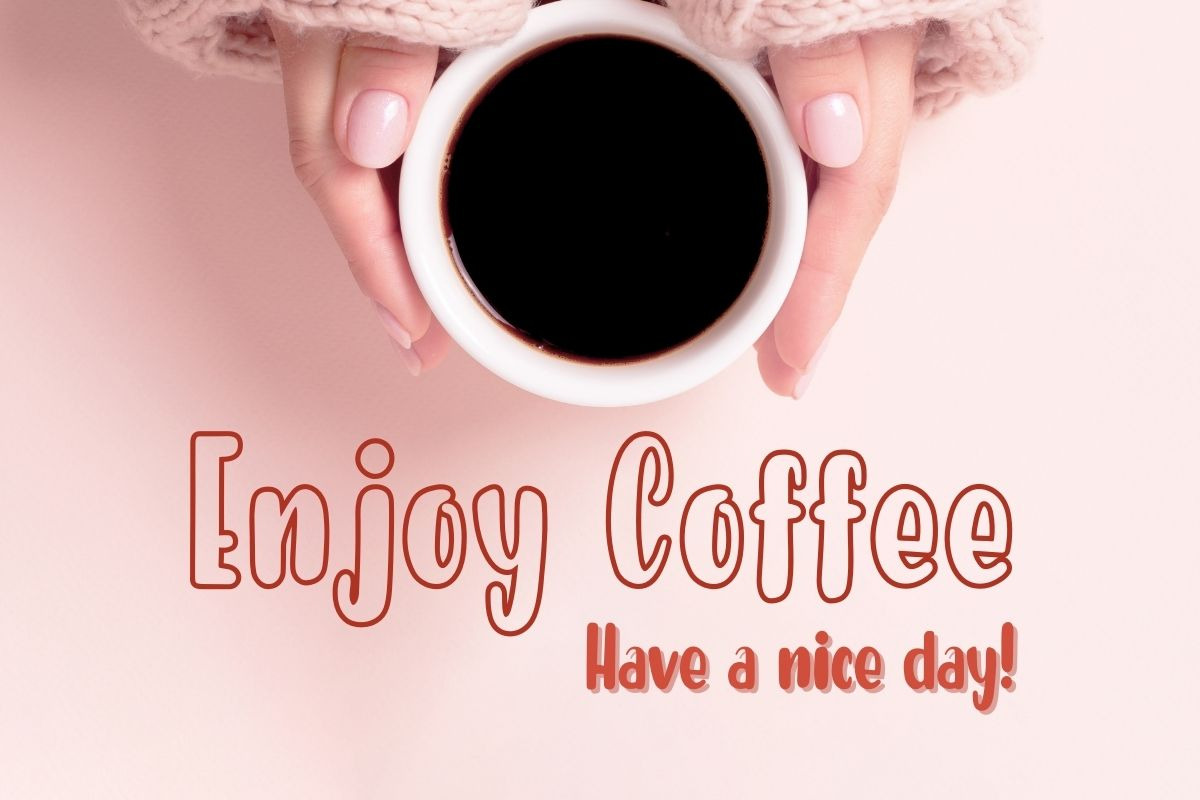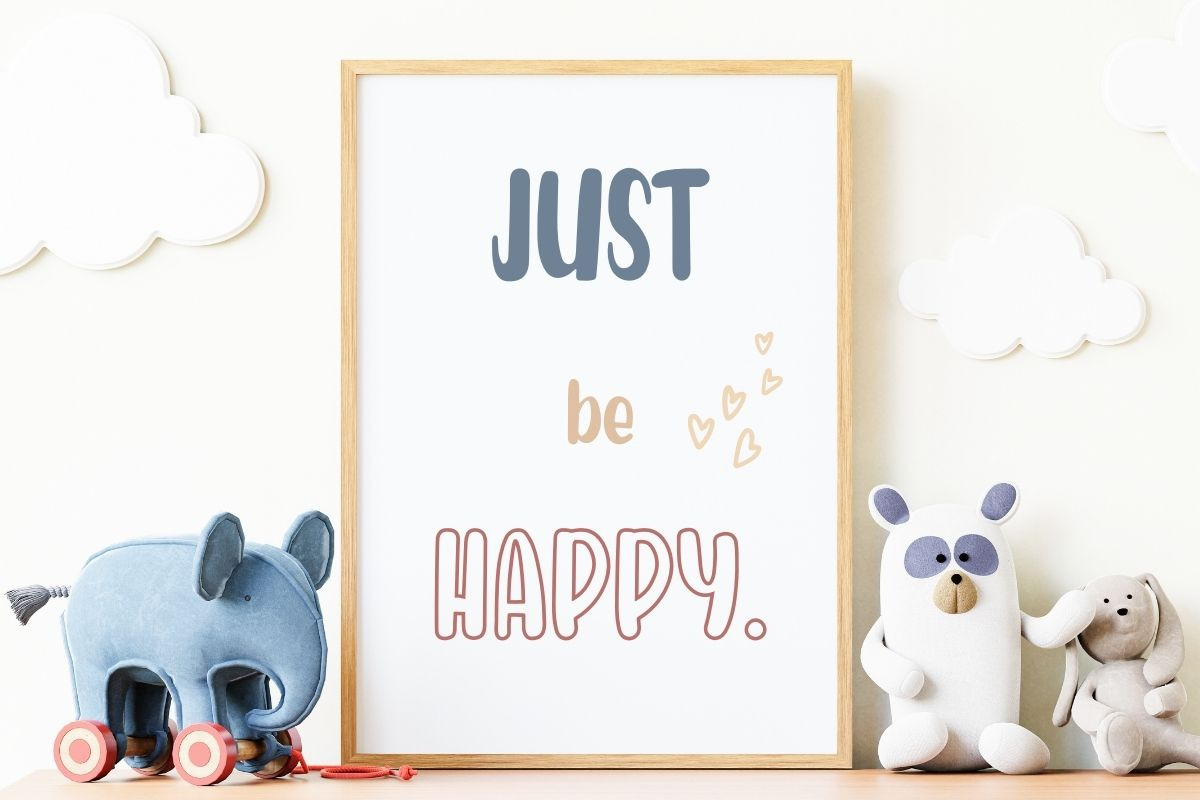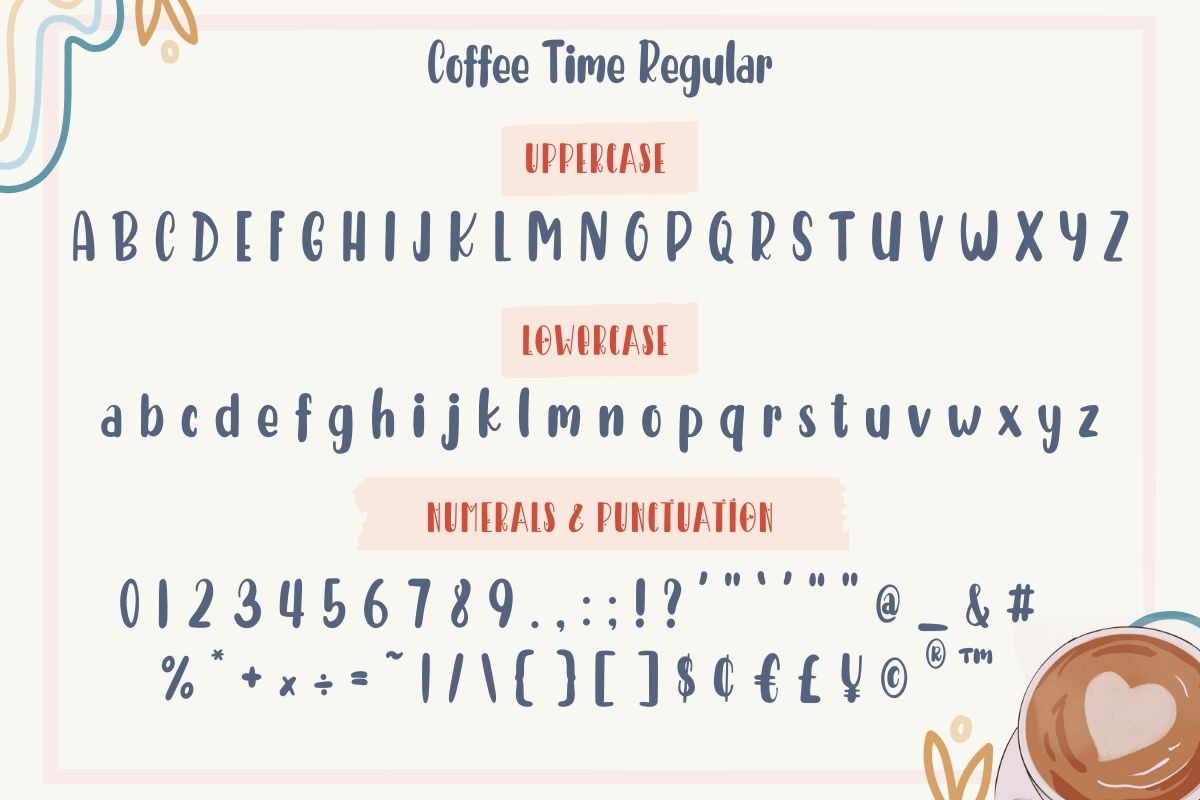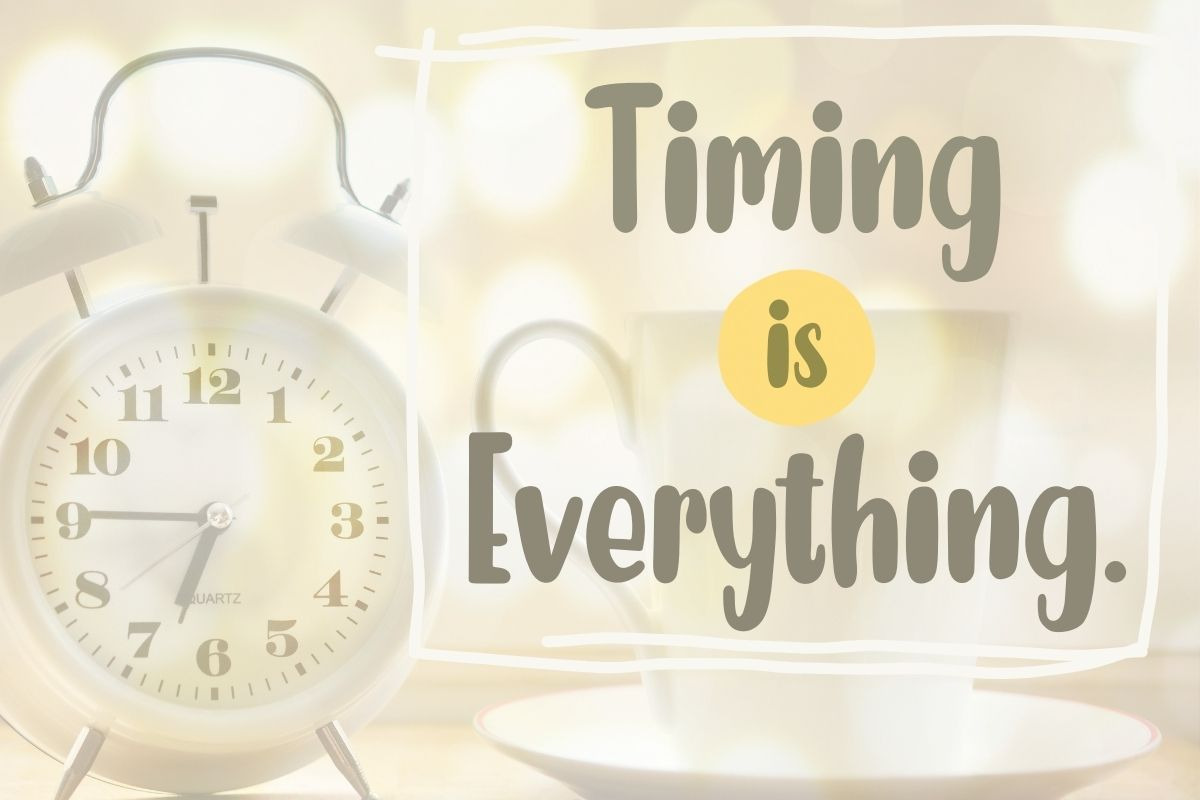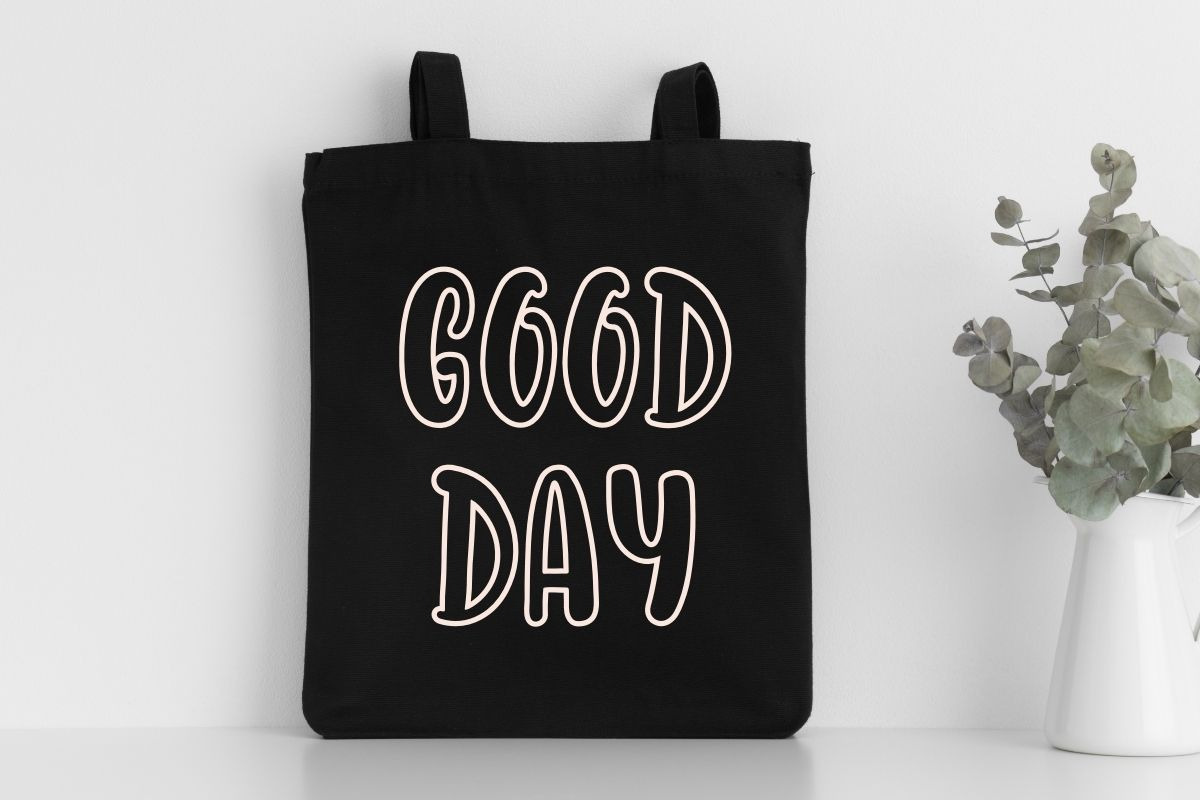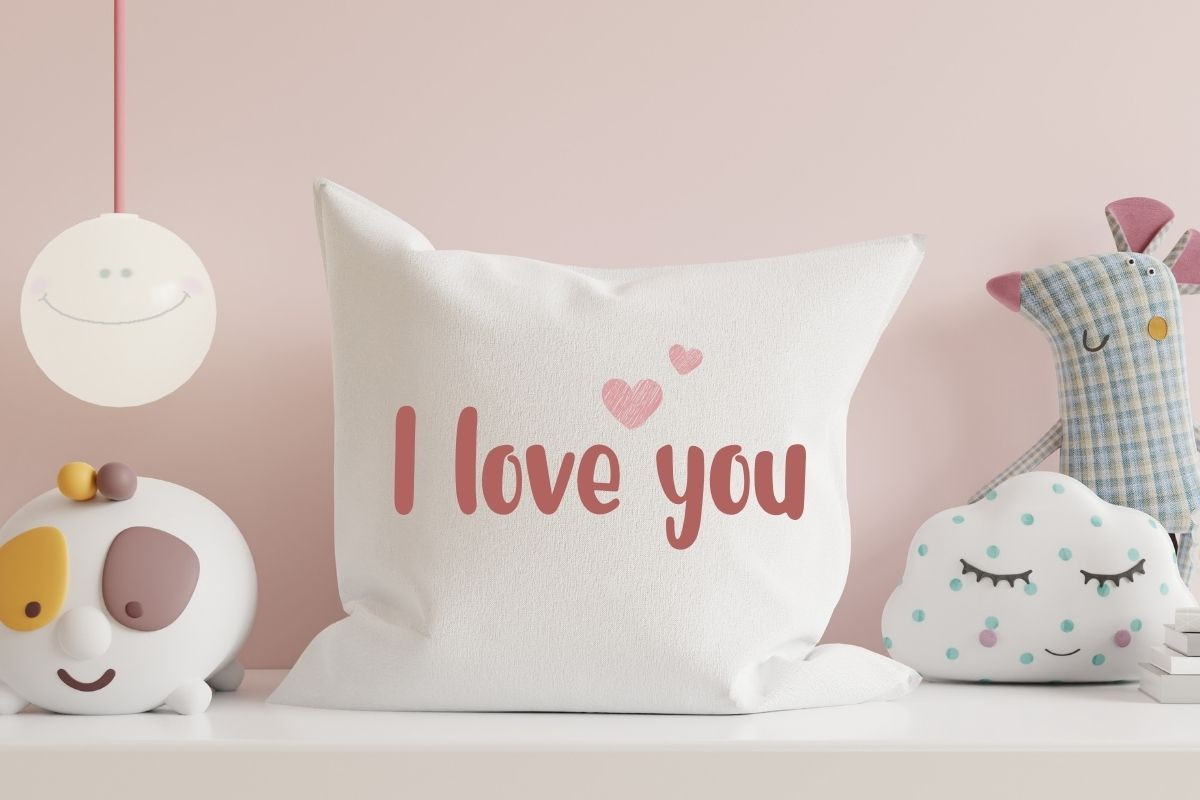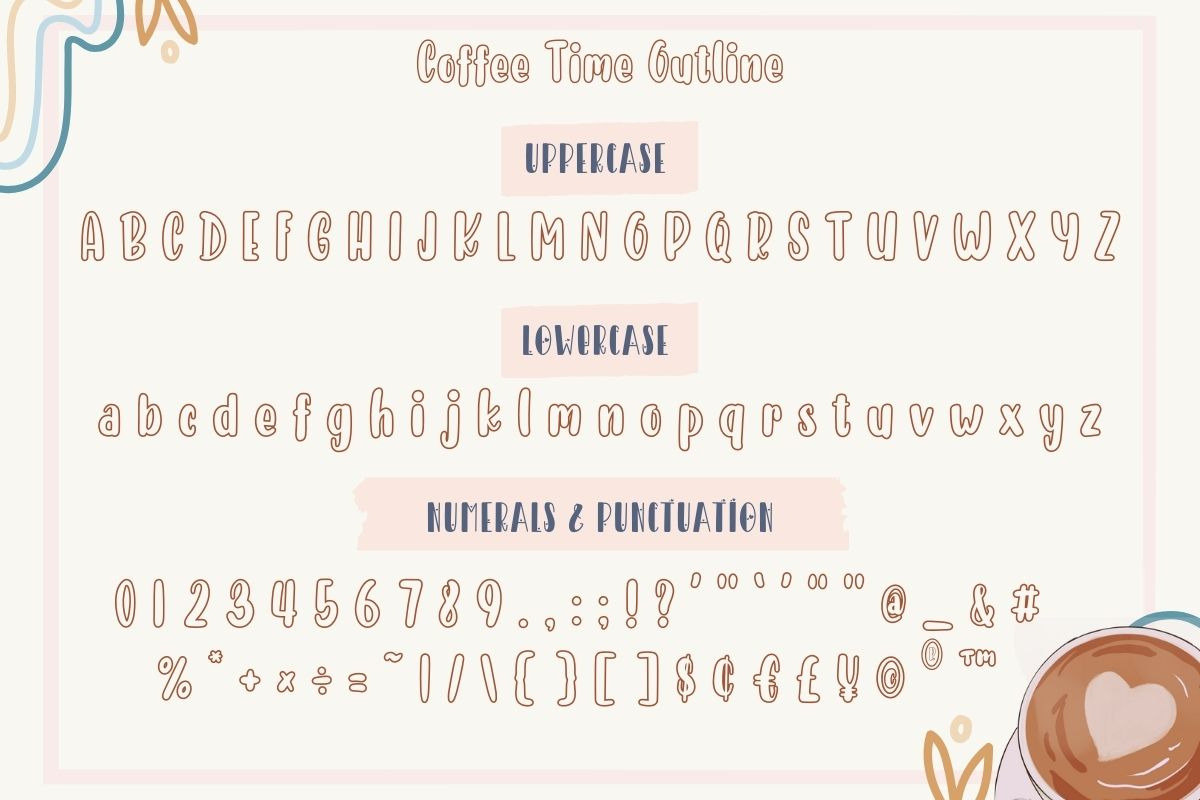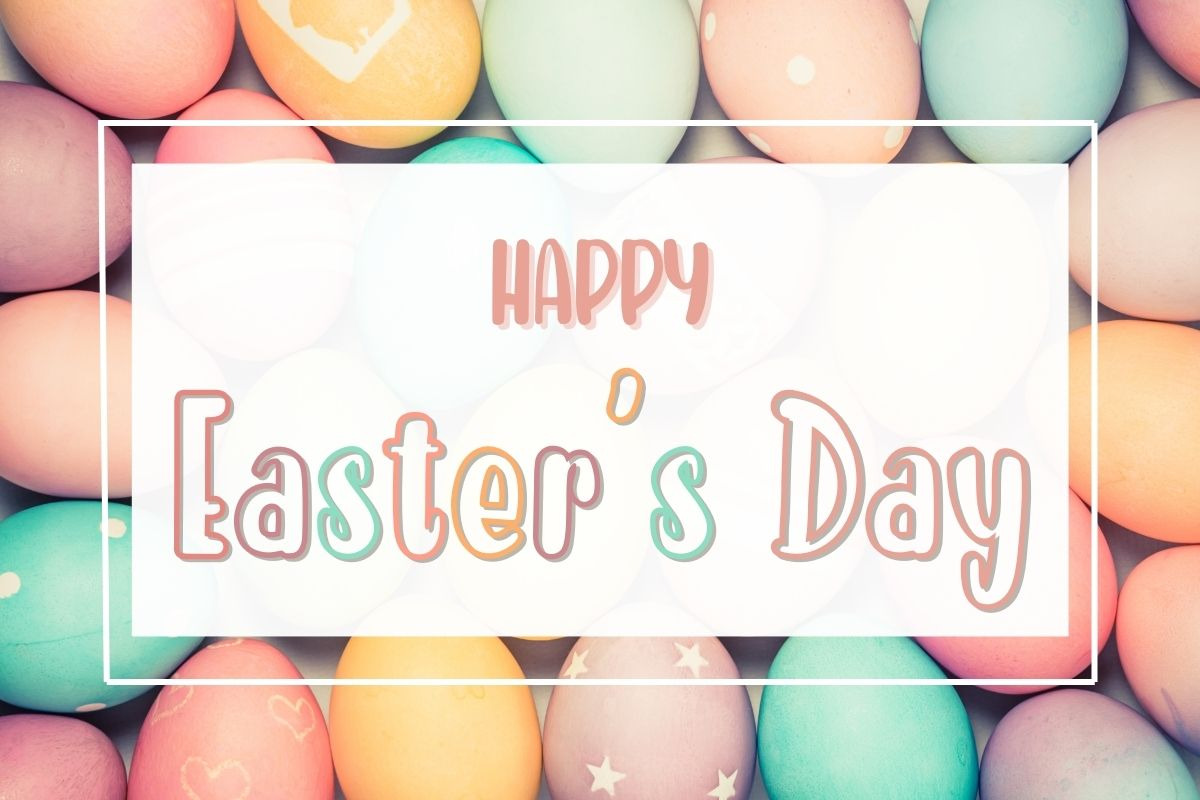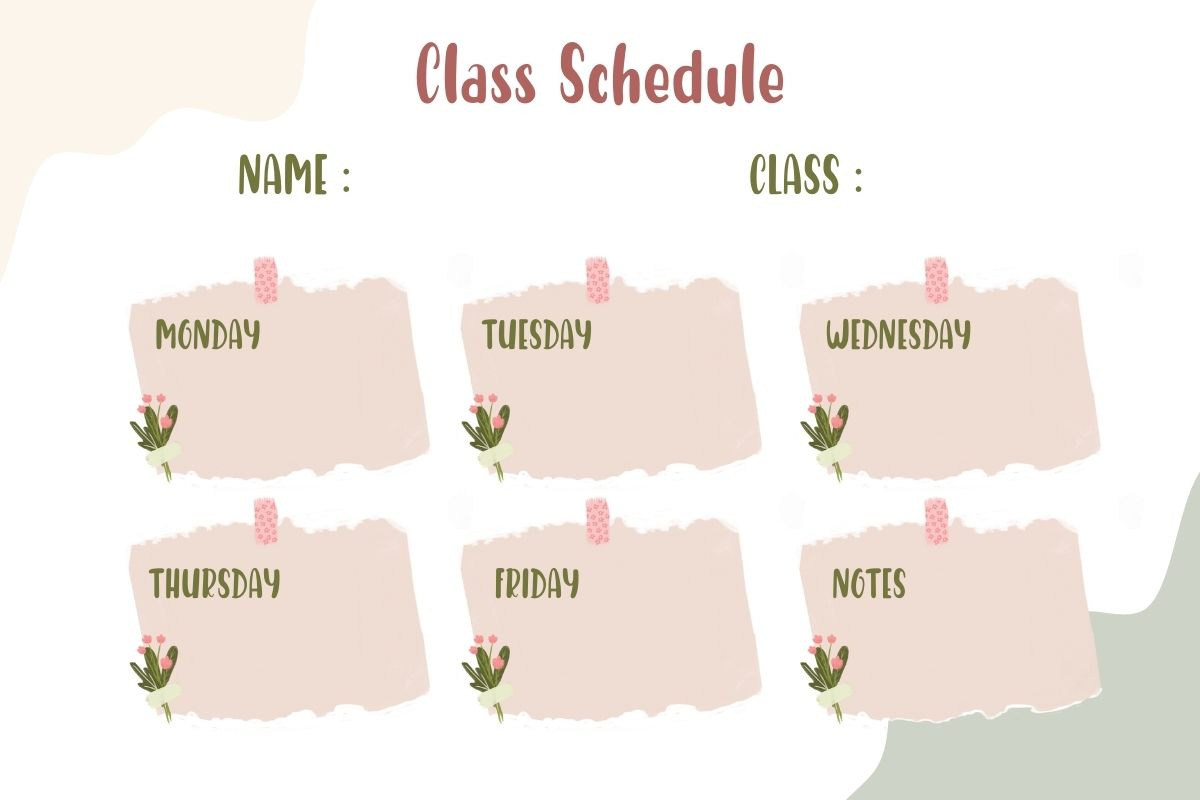
Coffee Time
Coffee Time is cute handwritten font. This font have 2 styles. (regular and outline) With its casual charm, this font is perfect for a wide pool of design ideas. You can design it to match products such as banners, content, mugs, cards, shirts, stationery, social media posts, and more!